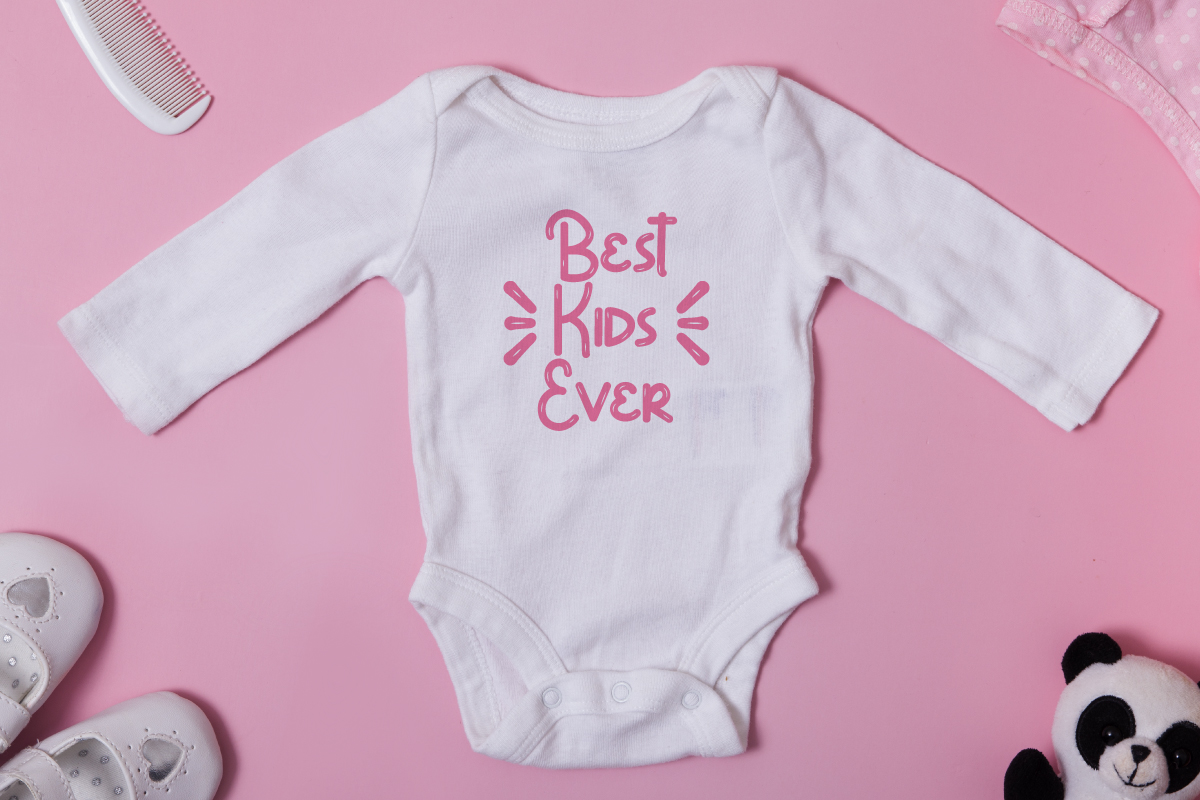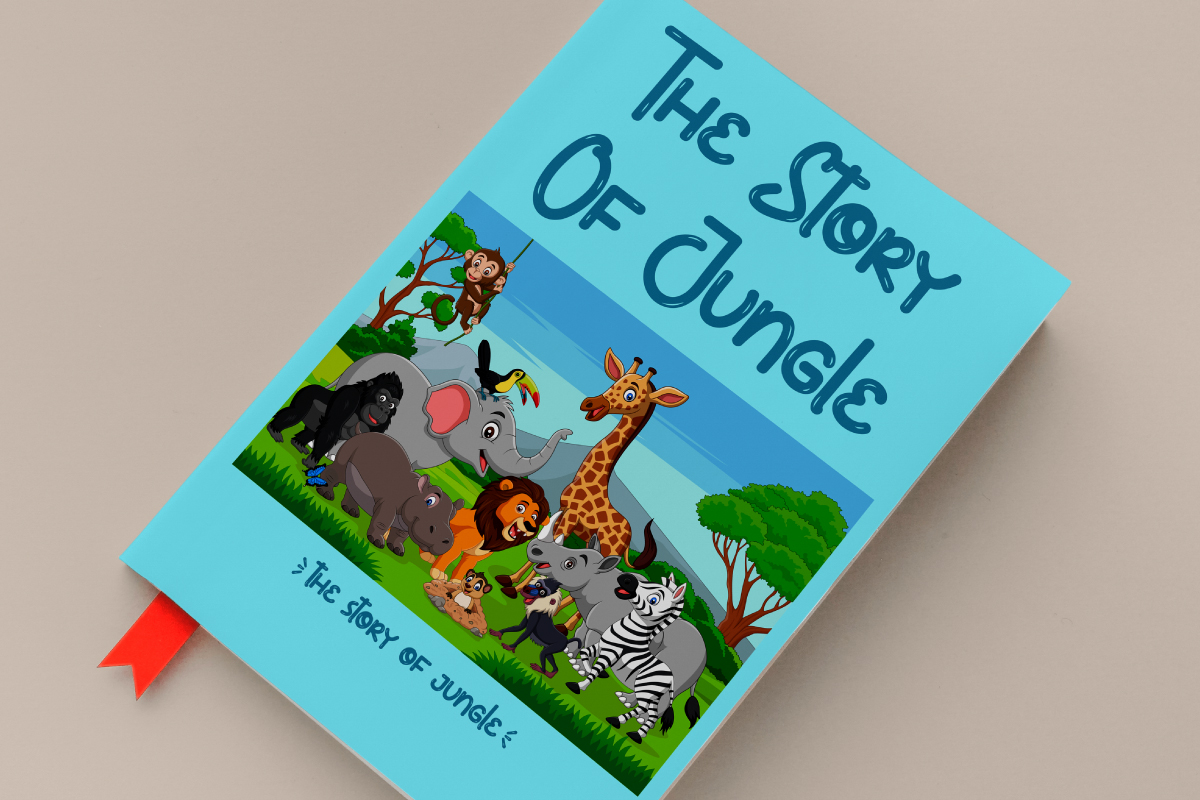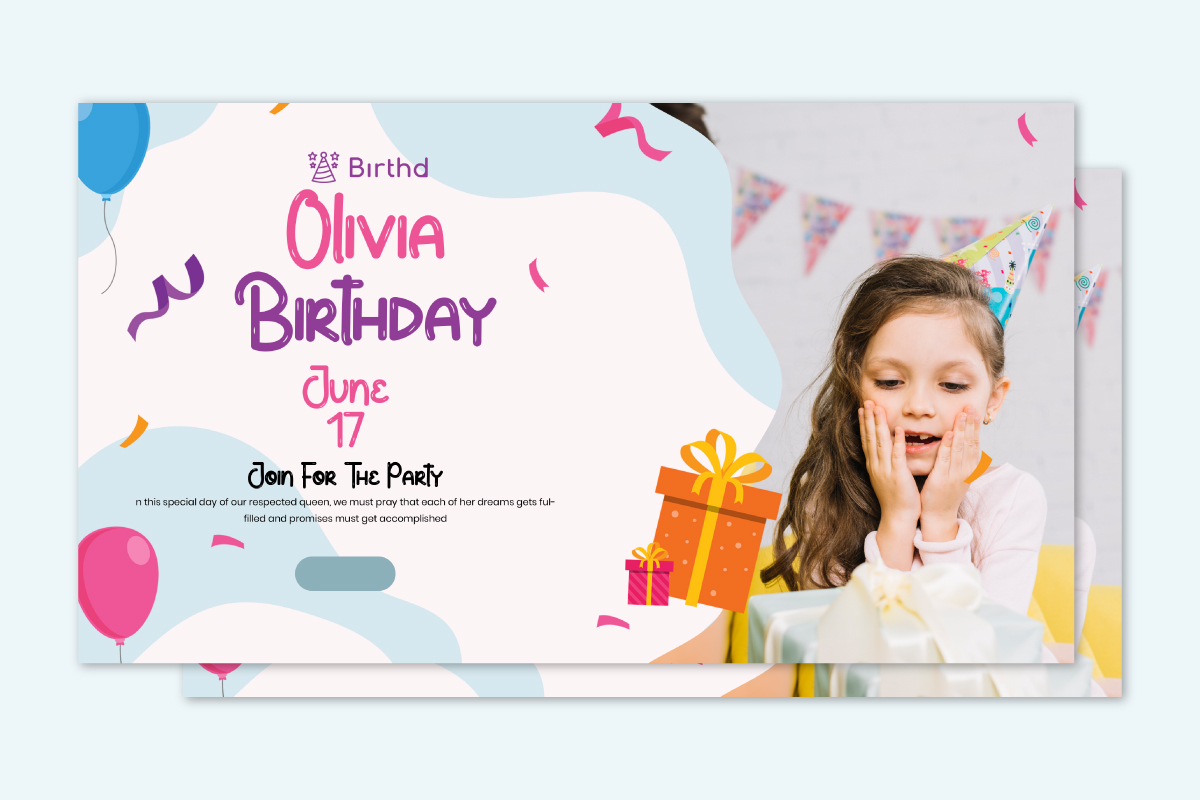
Candy Gum Font
Candy Gum Display Font
This Font was made with special unique shape and smooth shiny effects to make it standout. The font is great for many purposes including : promotion, events, branding, advertising, magazine, invitation, stationery, social media posts, label, or and any projects that need unique strong style. The theme/industries of this font is School, Food and Drinks, Vintage, Kids, Movie, Game, Magazine, Music, Video, Sports, etc